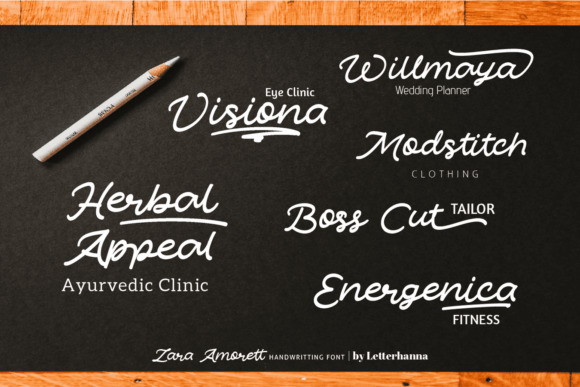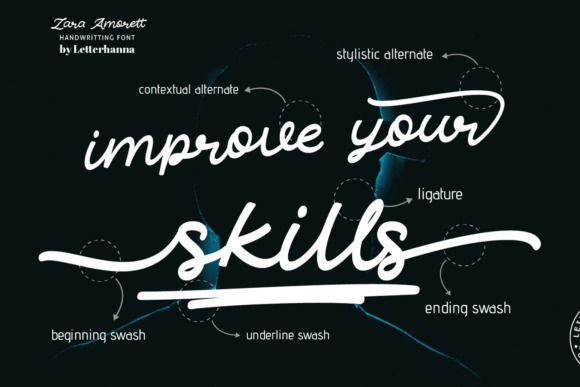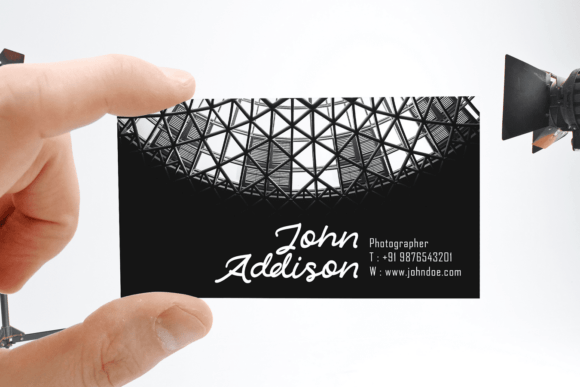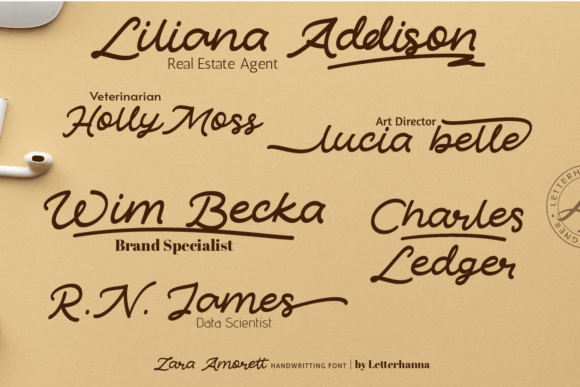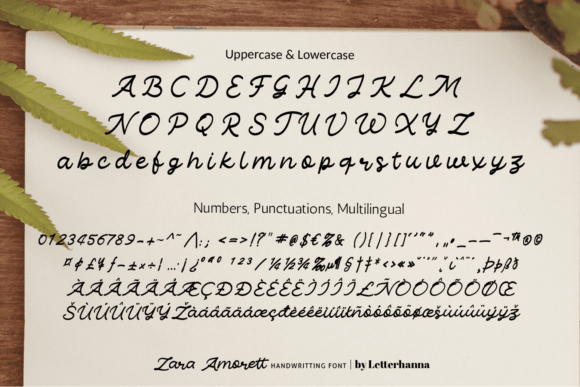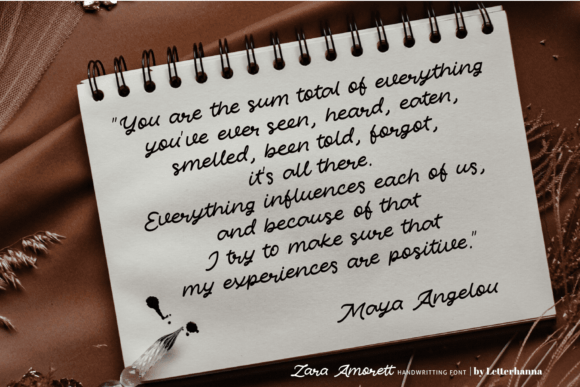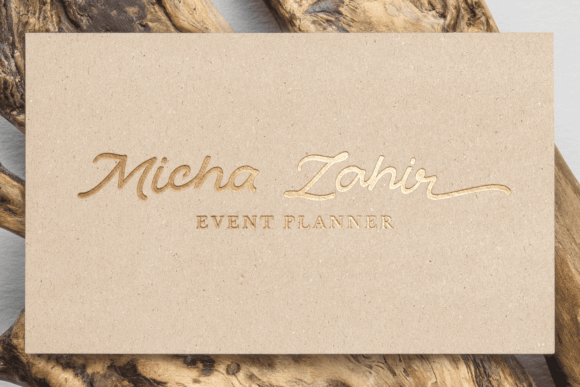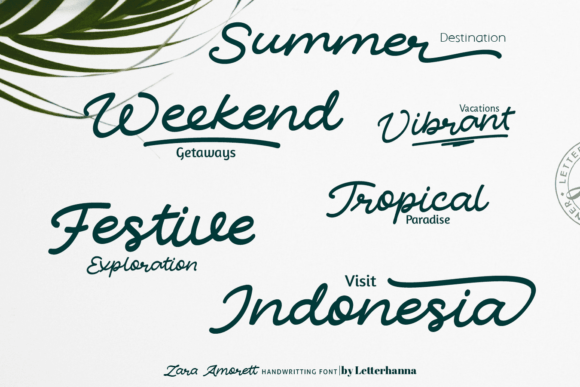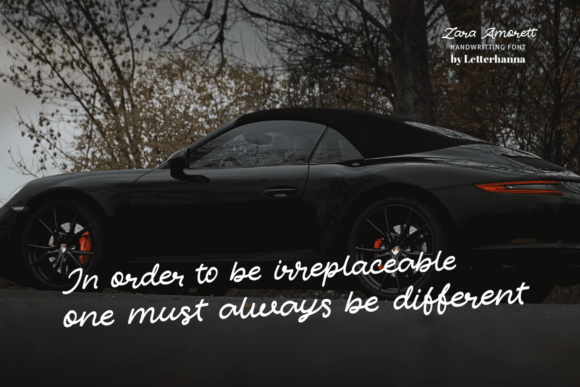
Zara Amorett Font
“Zara Amorett” is a contemporary urban handwritten script font, characterized by its bold and rounded shapes. It presents an appealing set of letterforms, which can be further enhanced through extravagant swashes, alternates, and unique endings. With the addition of 24 underline swashes, this font offers a comprehensive toolkit to elevate your design projects.
The heavy and rounded shape of “Zara Amorett” contributes to its modern urban aesthetic. The bold strokes and rounded edges convey a sense of confidence and style, making it a striking choice for a variety of design applications.
The inclusion of extravagant swashes, alternates, and endings provides a layer of customization to the font. This feature allows designers to experiment with different character variations, creating a unique and personalized look for their projects. The availability of 24 underline swashes adds further versatility, allowing for creative and dynamic layouts.
The versatility of “Zara Amorett” extends to its compatibility with other font styles. Whether paired with serif or sans-serif fonts, this script font can seamlessly integrate into diverse design projects. The flexibility to experiment with different type combinations enhances the overall visual impact of the design.
A key feature of “Zara Amorett” is its commitment to a natural handwritten script appearance. The inclusion of natural-looking ligatures and lowercase alternates contributes to the authenticity of the font, creating a fluid and organic feel. This attention to detail makes the font suitable for projects that seek a genuine handwritten aesthetic.
The PUA encoding of “Zara Amorett” is a practical feature, ensuring easy access to all glyphs and swashes. This encoding simplifies the process for designers, allowing them to navigate and utilize the font’s extensive character set with ease.
In conclusion, “Zara Amorett” is more than just a font; it’s a comprehensive design resource that offers a contemporary urban flair with a touch of natural handwriting. Its versatility, customization options, and PUA encoding make it a valuable asset for designers looking to create distinctive and stylish visual compositions.